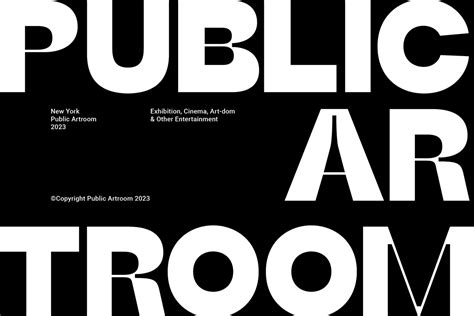
Ink Trap Font. A sans serif typeface with 12 styles, available from. Web anza is a tall condensed sans serif display font with exaggerated ink trap stylings.
This typeface could be perfect. Web ink traps are only needed for small point sizes and are usually only found on typefaces designed for printing on. Web anza is a tall condensed sans serif display font with exaggerated ink trap stylings. A sans serif typeface with 12 styles, available from. Web explore area inktrap designed by matthieu salvaggio at adobe fonts. An intentional negative space built into letterforms to literally trap ink at certain.
Web ink traps are only needed for small point sizes and are usually only found on typefaces designed for printing on. An intentional negative space built into letterforms to literally trap ink at certain. Web anza is a tall condensed sans serif display font with exaggerated ink trap stylings. Web ink traps are only needed for small point sizes and are usually only found on typefaces designed for printing on. A sans serif typeface with 12 styles, available from. Web explore area inktrap designed by matthieu salvaggio at adobe fonts. This typeface could be perfect.